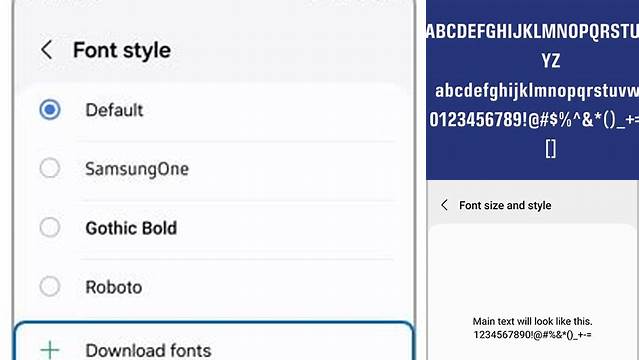
Samsung Fonts: Free Download Guide
Are you looking to download Samsung fonts for free? You've come to the right place! In this comprehensive guide, we'll explore everything you need to know about Samsung fonts, where to find them, how to install them, and even some alternatives if you're looking for something different. Fonts play a crucial role in the overall look and feel of your devices, websites, and documents. A well-chosen font can enhance readability, create a specific mood, and reinforce your brand identity. Samsung, as a global leader in technology, understands the importance of typography and has developed its own unique font families that are visually appealing and highly functional. So, let's dive in and discover the world of Samsung fonts!
Why Use Samsung Fonts?
Before we get into the nitty-gritty of downloading and installing, let's discuss why you might want to use Samsung fonts in the first place. Samsung fonts, such as SamsungOne and Roboto, are designed with clarity and legibility in mind. They are optimized for use on screens, making them perfect for websites, apps, and other digital platforms. SamsungOne, in particular, is a versatile font family that supports a wide range of languages, making it an excellent choice for international projects. These fonts offer a modern and clean aesthetic that can elevate the visual appeal of your content. Using a consistent font across your brand materials can help reinforce your brand identity and create a cohesive look and feel. If you're a fan of Samsung's design language, using their fonts is a great way to incorporate that style into your own work. Moreover, Samsung fonts are often available for free for personal and commercial use, making them an accessible option for designers and creators of all levels. The key benefit of using Samsung fonts lies in their readability. Designed meticulously for screen display, they ensure a comfortable reading experience, even on smaller devices. This is crucial for maintaining user engagement and conveying your message effectively. Moreover, their modern and clean design lends a professional touch to any project, be it a website, a presentation, or a document. By choosing Samsung fonts, you're not just selecting a typeface; you're opting for a design philosophy centered around clarity, efficiency, and aesthetic appeal.
Samsung Font Alternatives
While Samsung fonts are excellent choices, you might be looking for something a little different. Fortunately, there are many Samsung font alternatives available that offer similar aesthetics and functionality. Google Fonts is a great place to start your search, as it offers a wide variety of free and open-source fonts. Roboto, for example, is a popular sans-serif font that is often used as a substitute for SamsungOne. It has a similar clean and modern look and is highly legible on screens. Open Sans is another excellent alternative, known for its neutral and friendly appearance. It's a versatile font that works well in a variety of contexts. Lato is a stylish sans-serif font that offers a slightly more humanist feel than Roboto or Open Sans. It's a good choice if you want a font that's both modern and approachable. When choosing a font alternative, consider the overall tone and style you want to convey. Experiment with different fonts to see which one best suits your needs. Remember to check the licensing terms before using a font in your projects, especially for commercial purposes. When exploring alternatives to Samsung fonts, it's beneficial to consider the specific characteristics that you appreciate in the original typeface. If you're drawn to the clean lines and geometric forms of SamsungOne, fonts like Montserrat or Nunito might be suitable options. These fonts share a similar contemporary aesthetic while offering their own unique nuances. Another approach is to explore font pairings, where you combine different typefaces to create visual interest and hierarchy. This technique can help you achieve a distinctive design while maintaining readability and coherence.
Popular Font Alternatives:
- Roboto: A widely used sans-serif font that's similar to SamsungOne.
- Open Sans: A versatile and highly legible sans-serif font.
- Lato: A stylish sans-serif font with a humanist touch.
- Montserrat: A geometric sans-serif font with a modern feel.
- Nunito: A well-balanced sans-serif font that's easy to read.